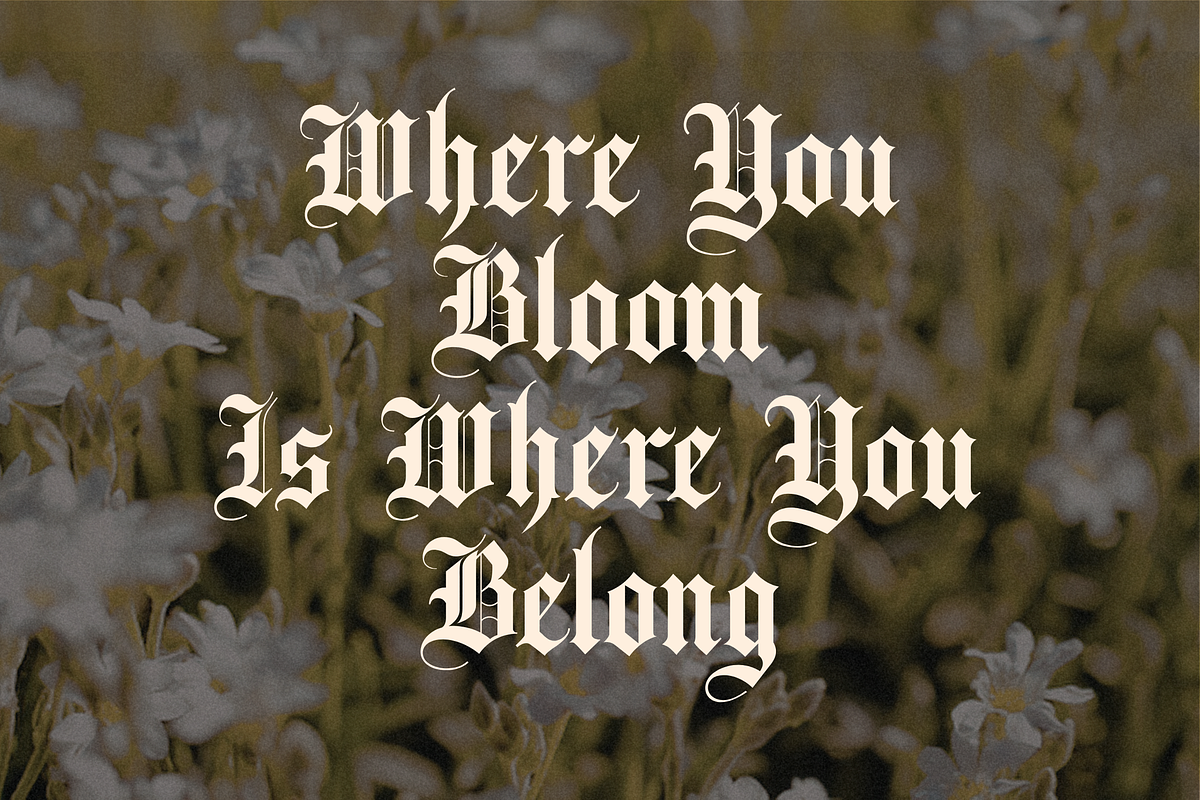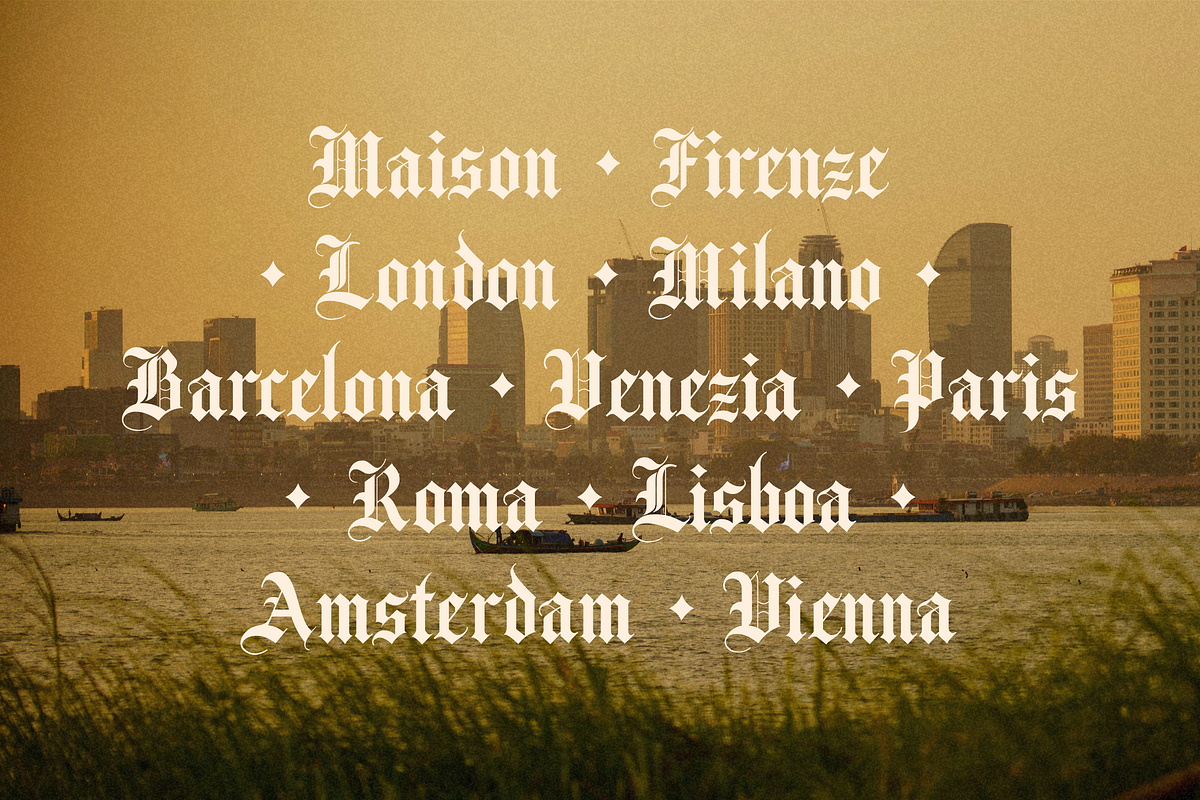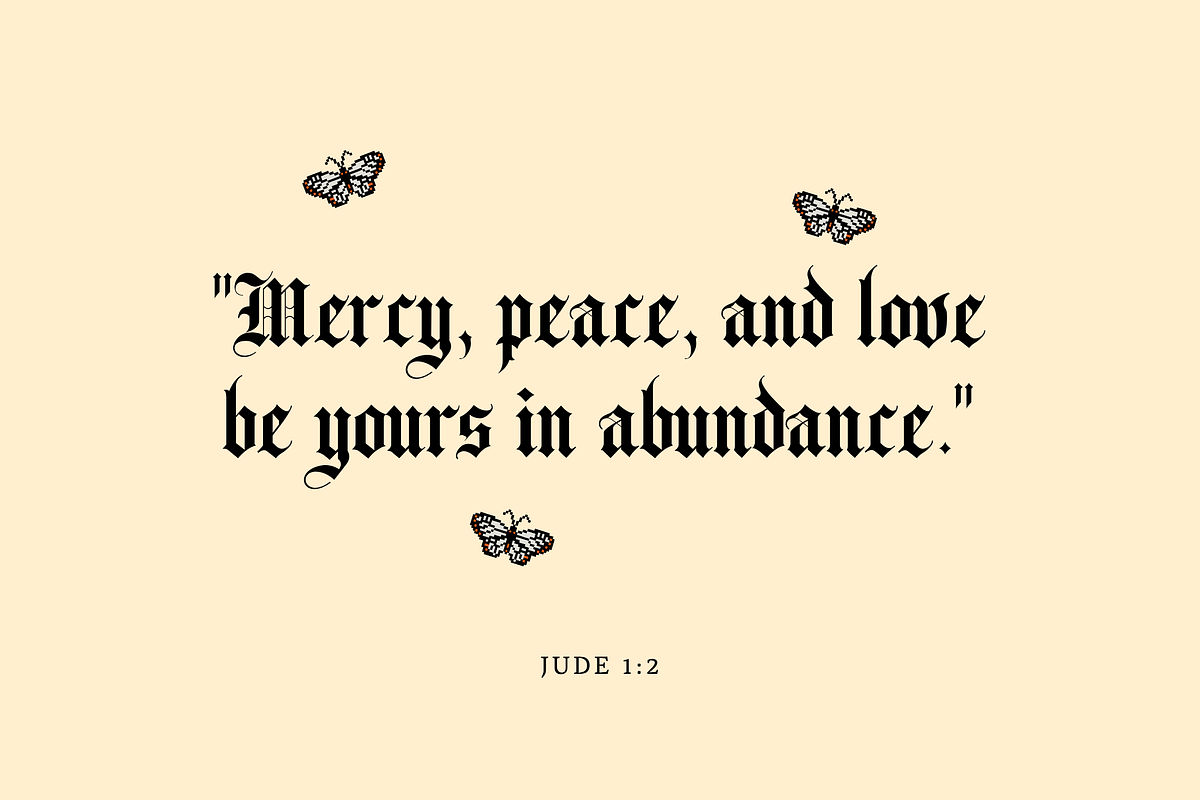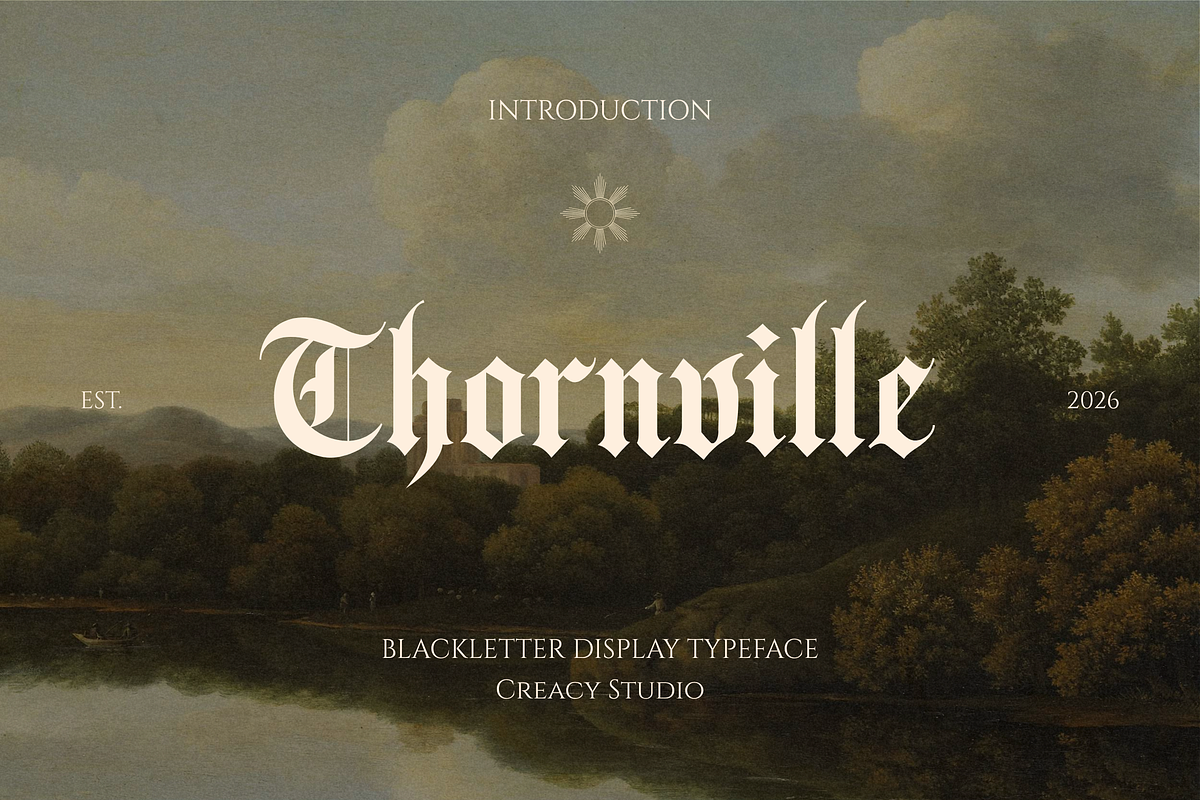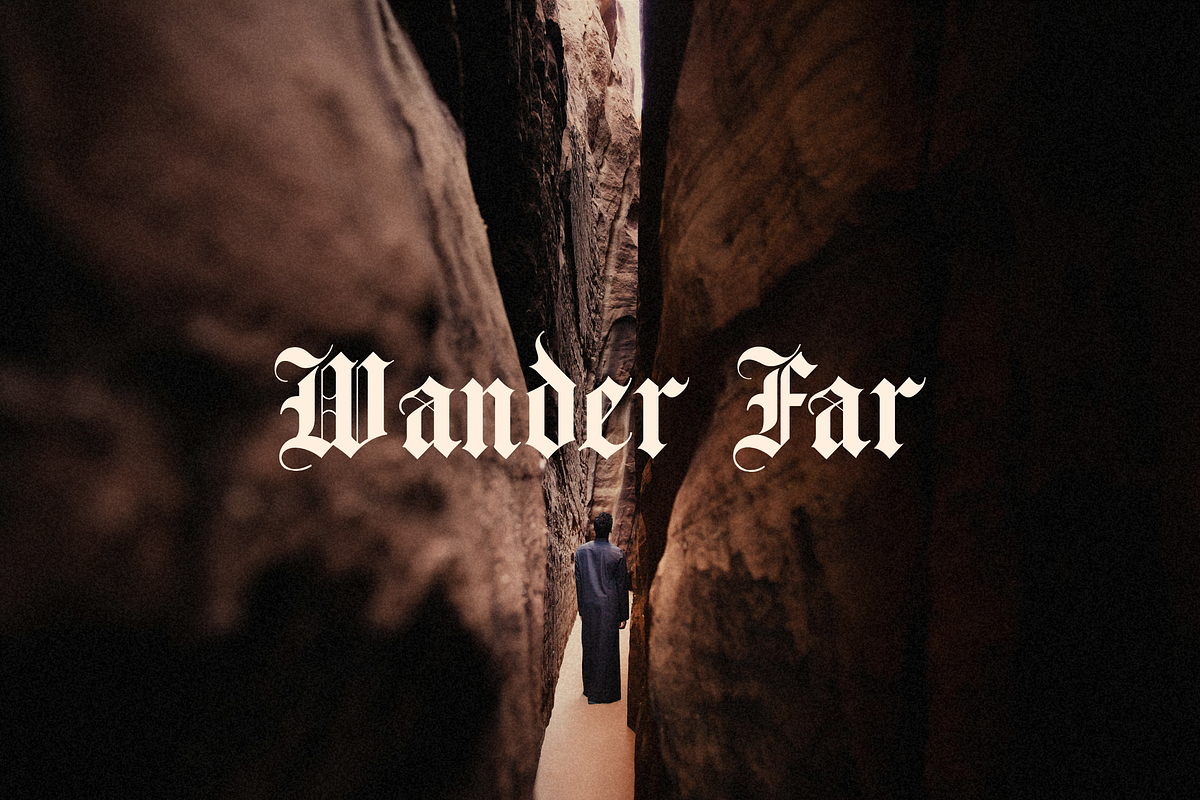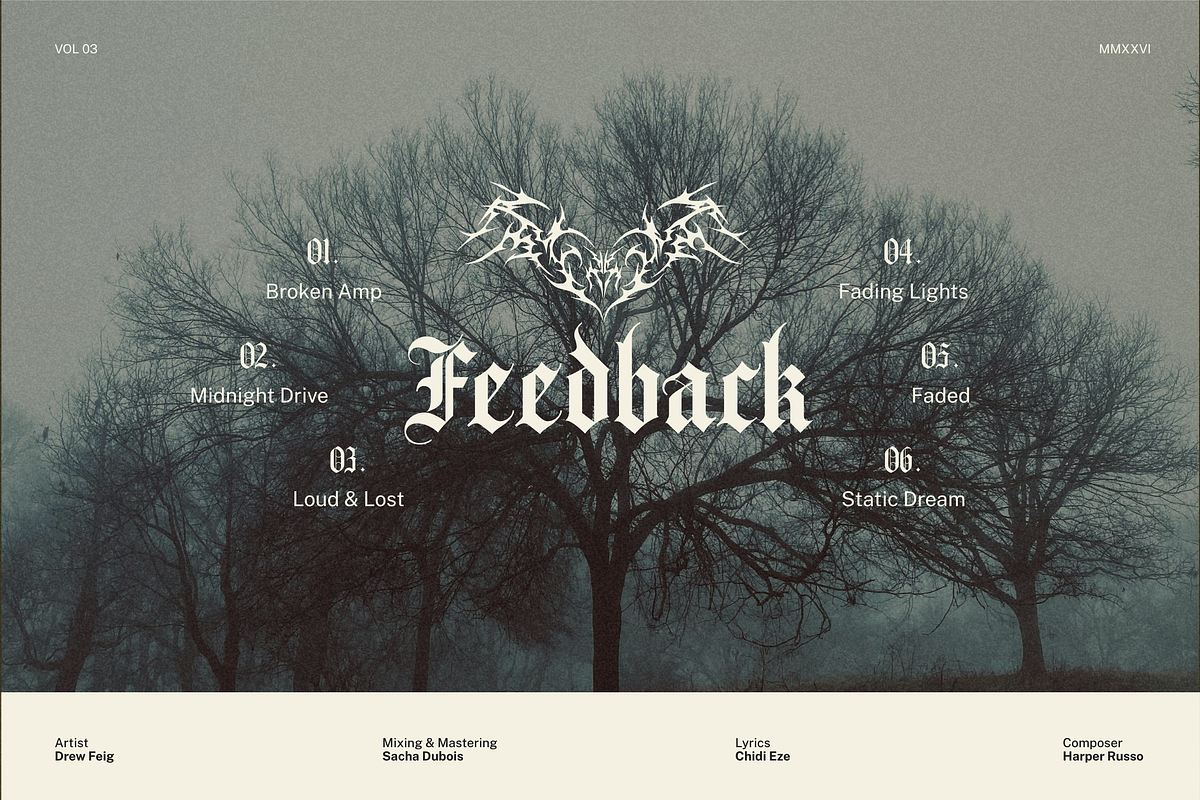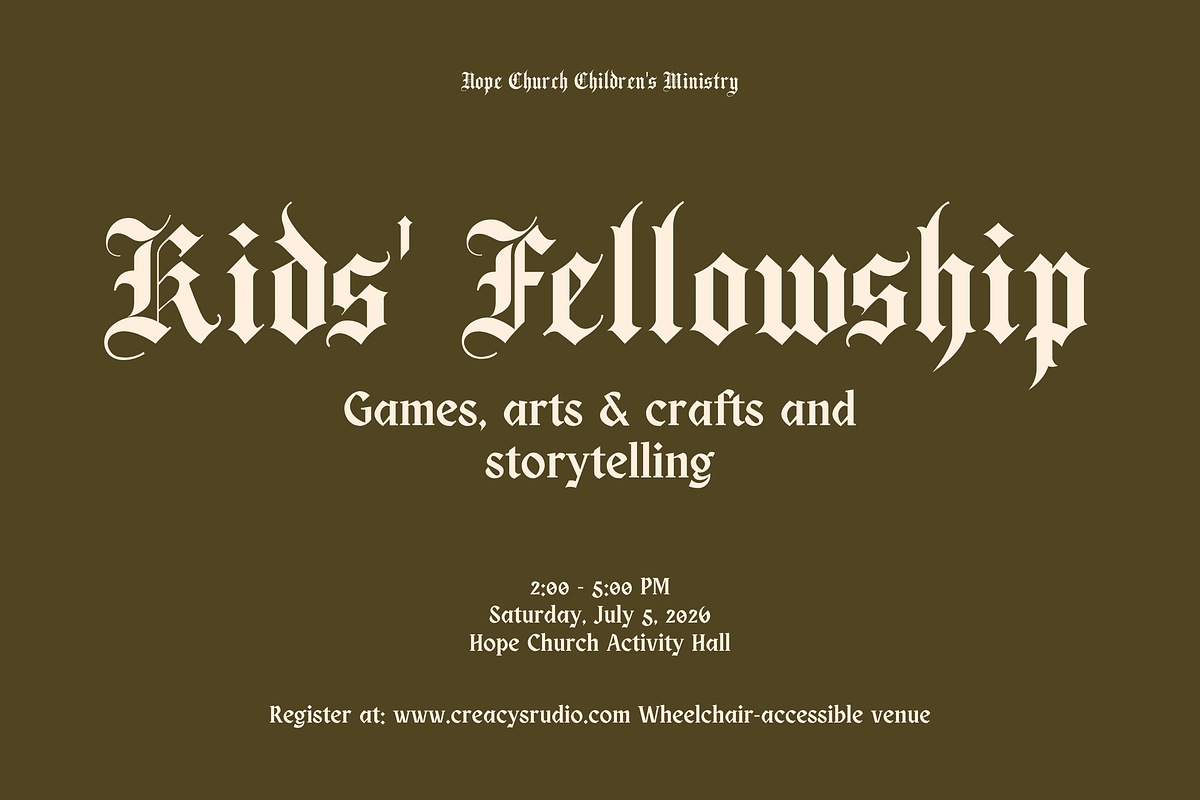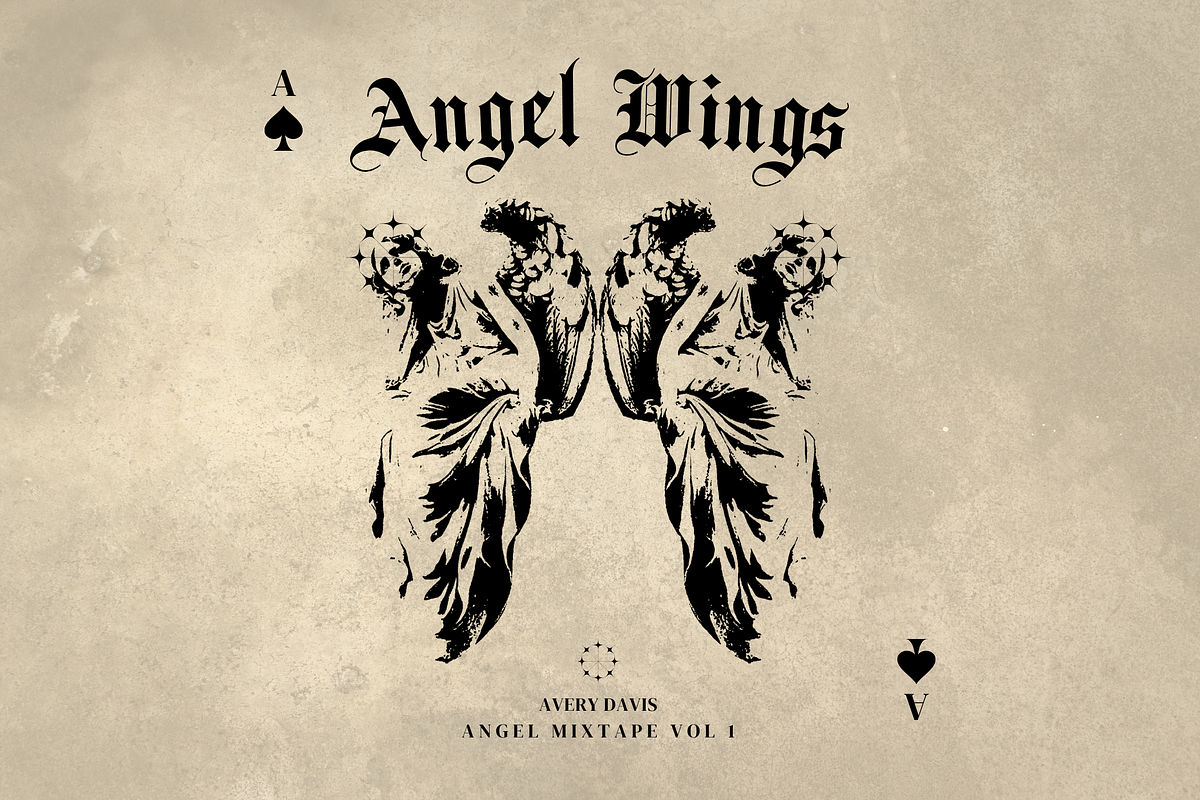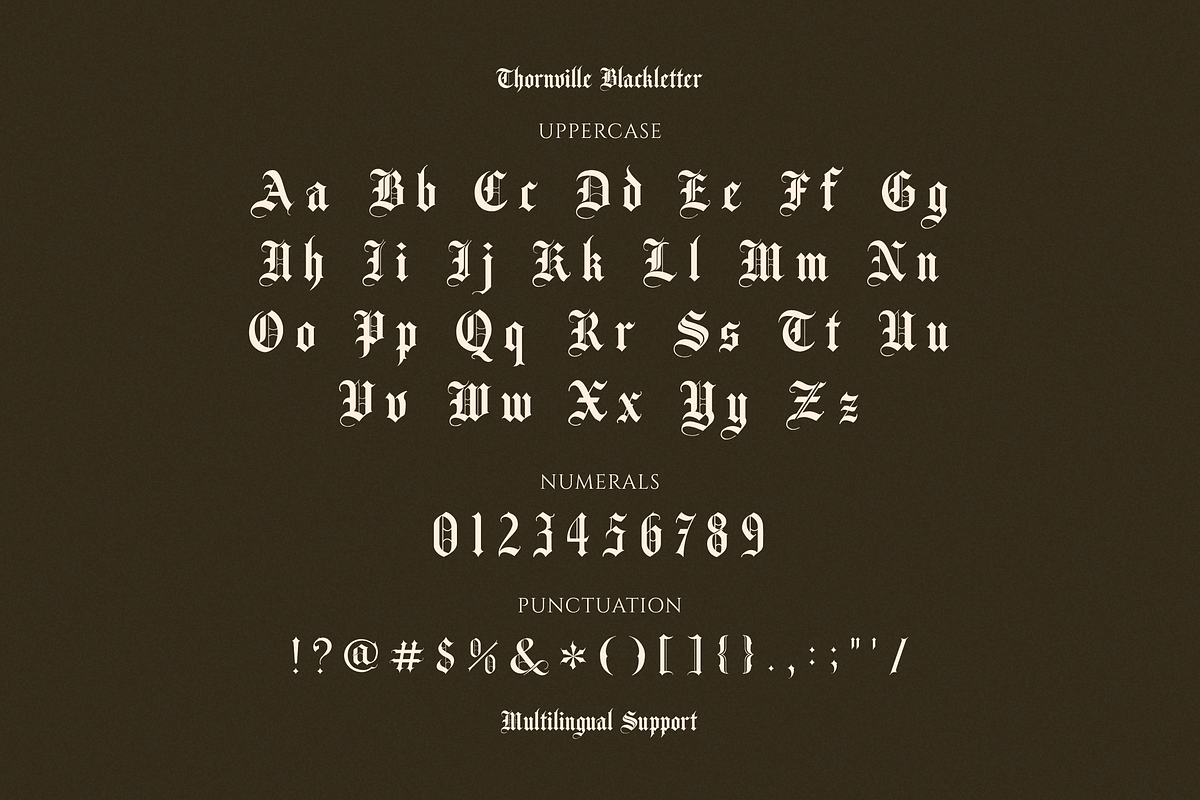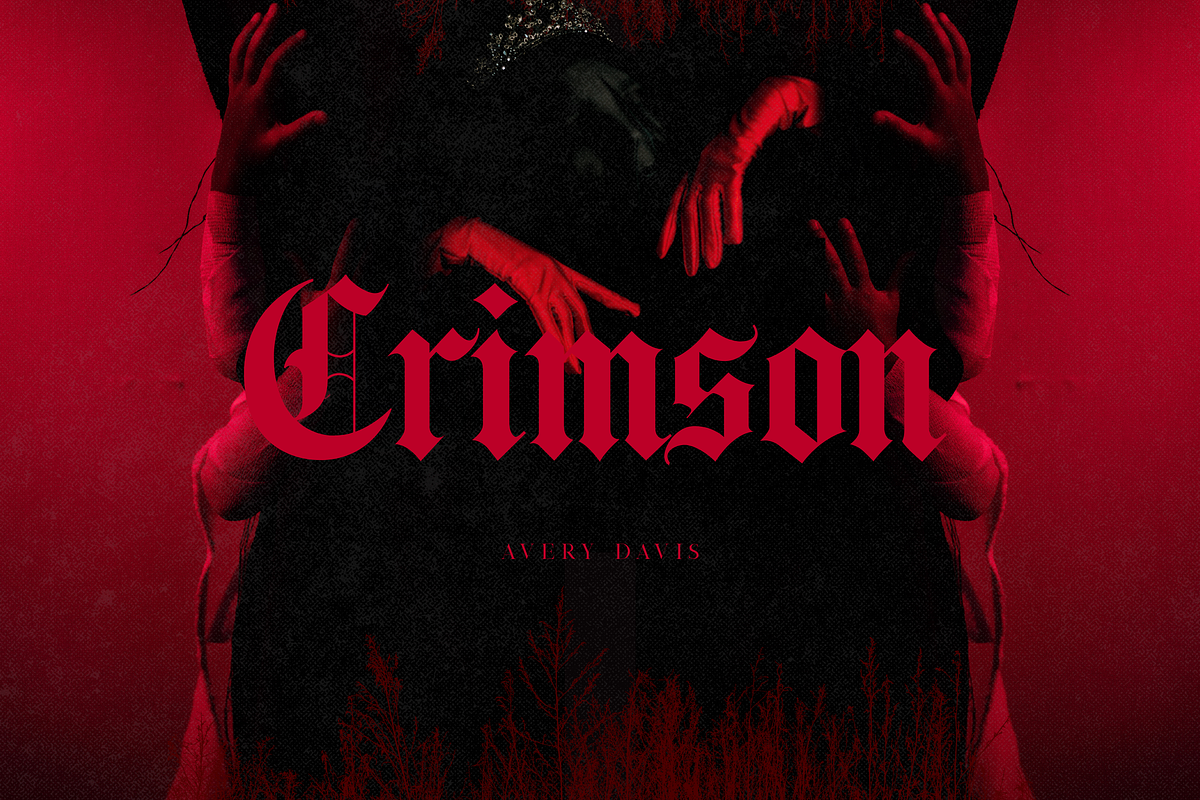
Thornville — Blackletter Display
Thornville — Blackletter Display Typeface
Thornville is a bold and ornamental blackletter display typeface inspired by traditional Gothic lettering, medieval manuscripts, vintage signage, and dark editorial aesthetics.
With its sharp angular structures, dramatic proportions, elegant curves, and distinctive decorative details, Thornville brings a strong historical character while remaining expressive and versatile for contemporary design.
Designed to make a statement, Thornville works beautifully for album covers, posters, branding, logos, apparel, editorial layouts, packaging, invitations, tattoos, book covers, and atmospheric visual identities.
Its striking uppercase forms and carefully crafted lowercase characters create a powerful typographic presence whether used for a single word, headline, or larger display composition.
Blackletter & Gothic branding
Logos & logotypes
Album & music artwork
Posters & flyers
Fashion & apparel design
Editorial & magazine layouts
Book & novel covers
Tattoo-inspired artwork
Vintage & medieval themes
Event invitations
Packaging & labels
T-shirt & merchandise designs
Gothic & alternative aesthetics
Typeface Features
Blackletter / Gothic display style
Distinctive ornamental letterforms
Dramatic high-contrast construction
Sharp medieval-inspired details
Elegant swashes and curved terminals
Uppercase & lowercase characters
Numerals
Punctuation & symbols
Multilingual character support
Designed specifically for display typography
Design Style
Dark • Gothic • Medieval • Ornamental • Vintage • Dramatic • Editorial • Mystical • Elegant
Thornville is especially effective when paired with minimal supporting typography, textured backgrounds, vintage photography, medieval imagery, botanical elements, or dark editorial compositions.
Use it as a powerful headline font, logo centerpiece, or statement typeface to instantly establish a distinctive Gothic atmosphere.